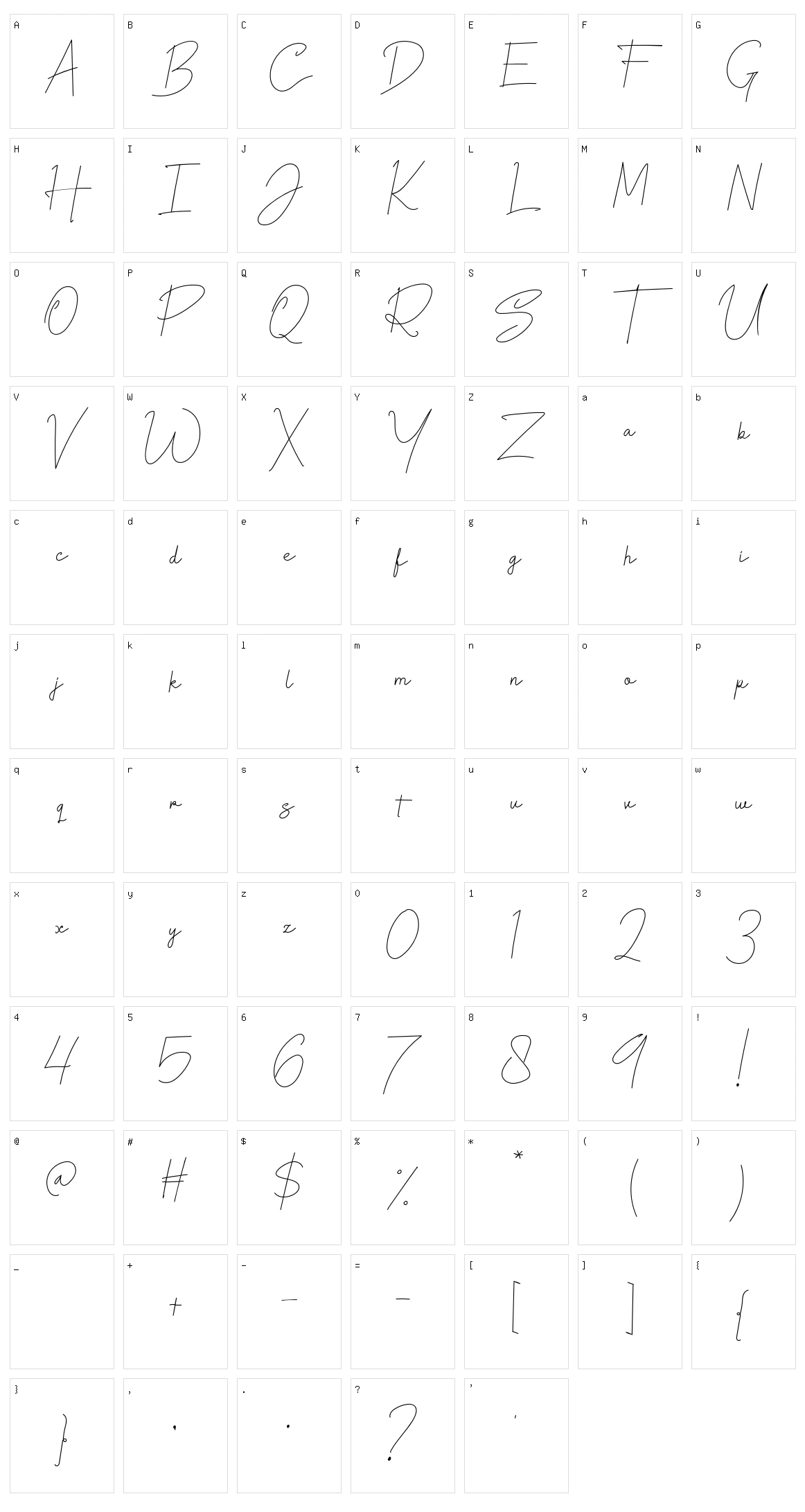
The free font The Rosmarie Signature is carefully designed by Ibra Creative Studio, showcasing a thoughtful balance of creativity and usability and falls under the Script font style. When you download the ZIP file, it contains only 19.22 KB of font files, making it lightweight and quick to download. Please review the license details below to understand permitted usage and distribution rights. If license information is not available, we recommend using this font for personal projects only or contacting the author directly for commercial usage permissions.